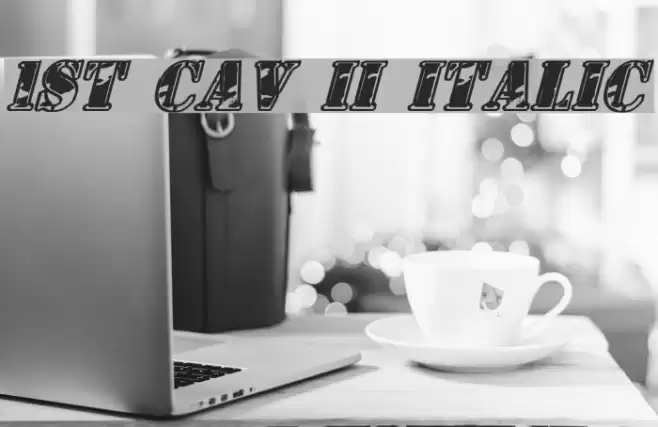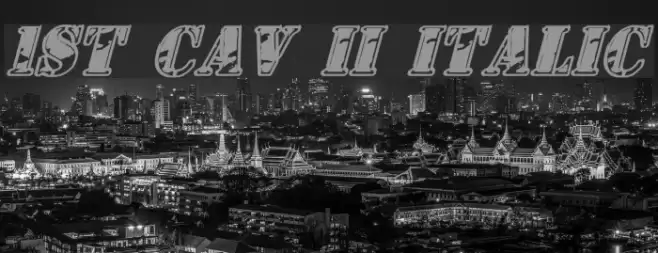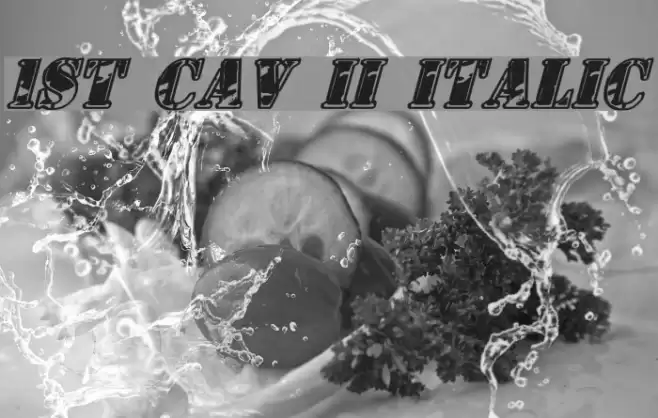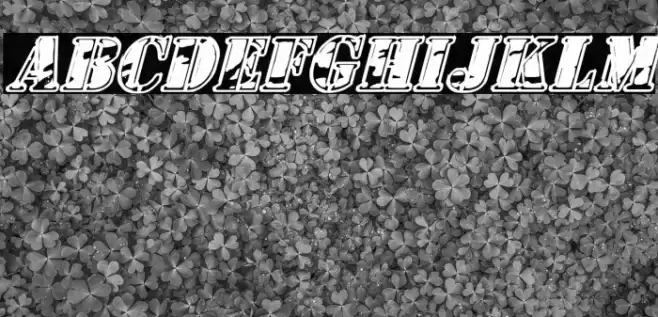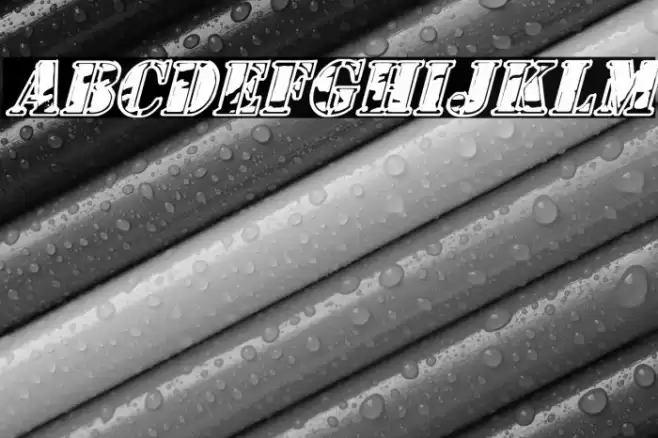
1st Cav II Italic Font
1st Cav II Italic Description
This font features a bold and dynamic style with a distinct italic slant, giving it a sense of movement and energy. The characters are outlined with a thick, black border, creating a striking contrast against the inner white space. This design choice enhances readability while maintaining a decorative flair. The font's boldness is consistent across all characters, including uppercase, lowercase, numerals, and special symbols. The italicized nature adds a touch of elegance and sophistication, making it suitable for attention-grabbing headlines and titles. The overall appearance is both modern and slightly retro, reminiscent of vintage signage or sports team logos.
A bold, italicized font with thick outlines and a dynamic, retro-modern style from Stencil fonts.
- Proposed Projects: Ideal for sports team branding, vintage-themed posters, dynamic headlines, and eye-catching advertisements.
- Overall Style: Retro, Modern